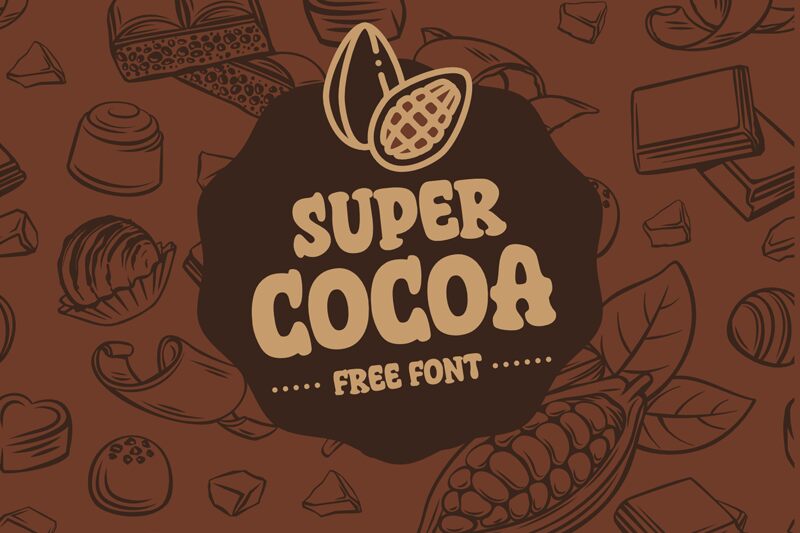
Super Cacao
Super Cacao, crafted by the talented fsuarez913, is a captivating display font with an extra-bold weight. Inspired by cartoons, this font unleashes a playful spirit that radiates through its curvaceous and exaggerated letterforms.
Its charismatic style makes it ideal for children's books, animated videos, and toy packaging designs. Super Cacao's ability to evoke joy and creativity also makes it a delightful choice for birthday invitations, comic strips, and bold branding projects seeking to stand out from the crowd.